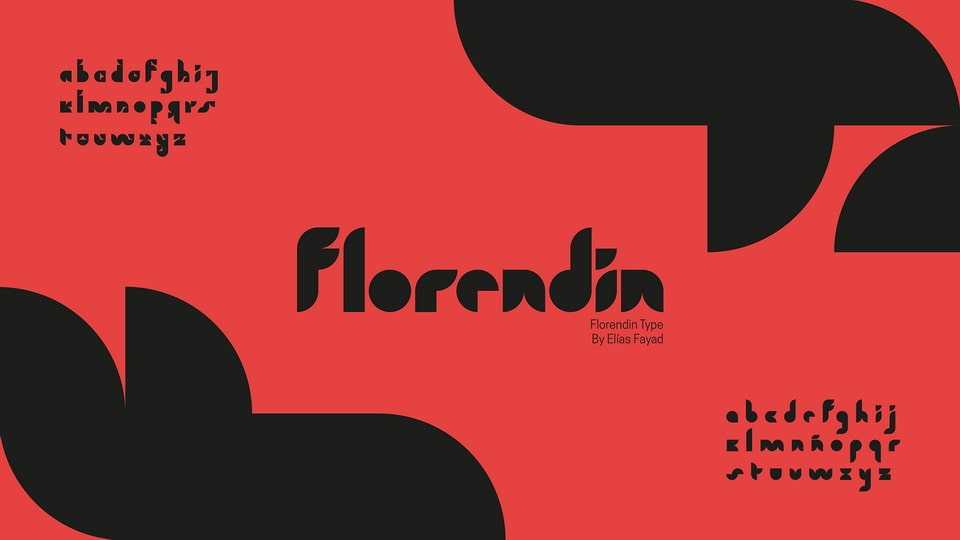
Download Florendin font, a modular typeface that has a geometric character, minimalist and harmonious, designed to captivate everyone aesthetic lovers modern and elegant.
Designer: Elías Fayad